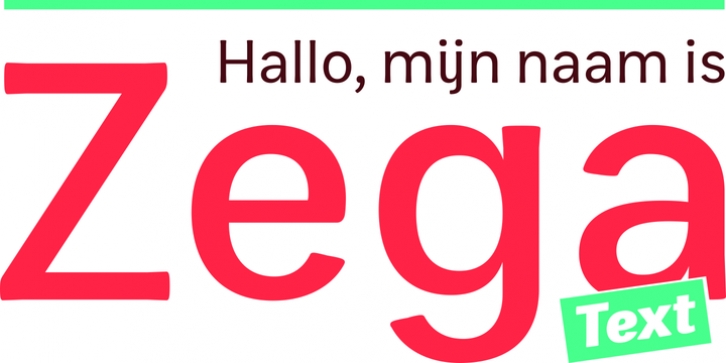
Zega Text is a top-heavy sans family, inspired in the imprecisions of letterpress printing. Zega has 14 versions that give to your text (printed or on screen) a delicious sense of old printing.
Give an exclusive touch to your text with normal versions, without losing reading clarity. Try the heavier versions and add a nice impact to your titles!
The family consists of 14 styles, 7 weights plus their respective italic versions. The fonts are available in OpenType PS and have extended character set to support CE, Baltic, Turkish as well as Western European languages. You can test Zega Text downloading the free trial font in Semibold version (TT only). This trial file supports only Western languages.